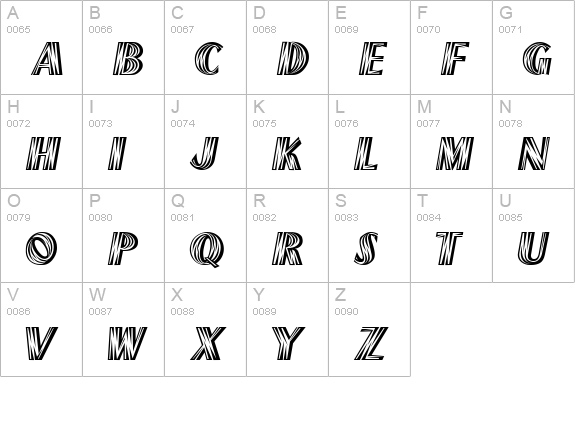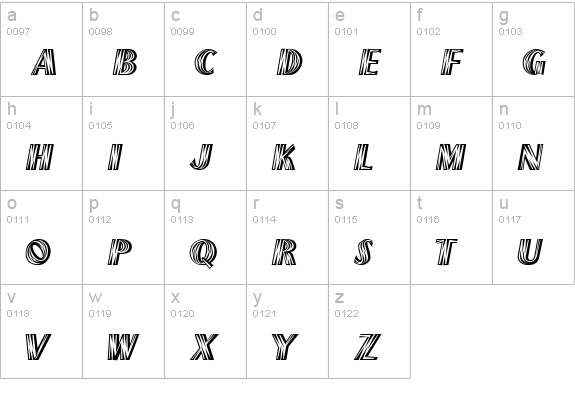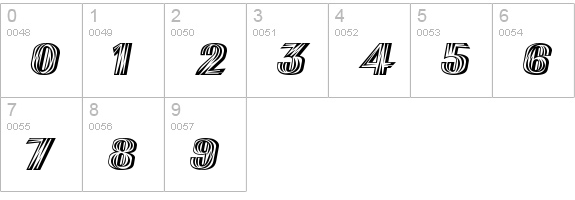
Palisander Font Details
Palisander font is a stunningly elegant typeface that exudes sophistication and charm. Its graceful curves and delicate serifs give off a timeless and classic aesthetic, making it perfect for various design projects. Whether you're creating invitations, branding materials, or editorial pieces, Palisander font is sure to add a touch of refinement to your work. The best part? Palisander font is available for free download at FontsMarket.com. This means you can easily access this exquisite font without any cost, allowing you to elevate your designs without breaking the bank. Don't miss out on the opportunity to enhance your projects with the beauty of Palisander font - download it today and let your creativity shine!